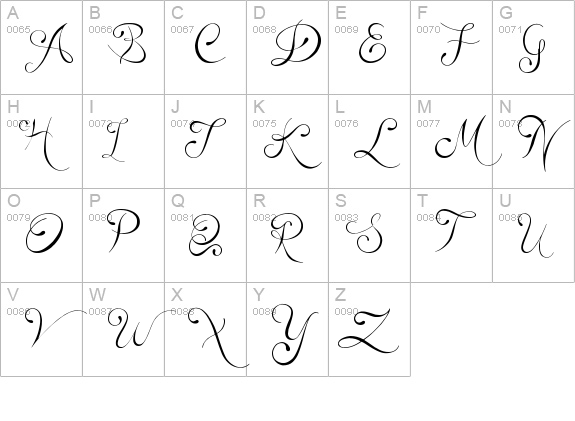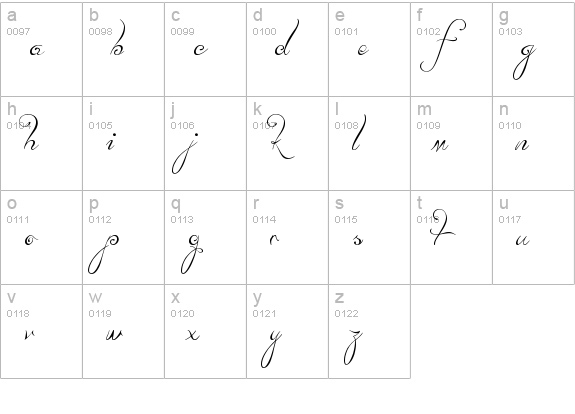
Catalina Script Font Details
Catalina Script is a beautifully elegant font that exudes a sense of sophistication and refinement. Its flowing strokes and delicate curves make it the perfect choice for any project that requires a touch of class. This font is not only stunning in its design, but it also offers the added bonus of being free. That's right, you can download Catalina Script for free at FontsMarket.com. This means that you can add a touch of elegance to your designs without breaking the bank. Whether you're creating wedding invitations, branding materials, or simply want to add a touch of style to your personal projects, Catalina Script is the ideal font choice. Its timeless appeal and versatile nature make it suitable for a wide range of applications. The beauty of Catalina Script lies in its versatility. It can be used for both formal and informal projects, adding a touch of elegance to any design. Its cursive style gives it a handwritten feel, making it perfect for adding a personal touch to your creations. With its wide range of ligatures and alternate characters, Catalina Script offers endless possibilities for customization. You can easily create unique and eye-catching designs by experimenting with different combinations of letters. In addition to its stunning design and versatility, Catalina Script is also incredibly easy to use. Its smooth and consistent lines ensure that every character is legible and pleasing to the eye. Whether you're a professional designer or a beginner, you'll find working with Catalina Script to be a breeze. So why wait? Download Catalina Script for free at FontsMarket.com and start adding a touch of elegance to your designs today. With its timeless appeal and versatility, this font is sure to become a staple in your font library.